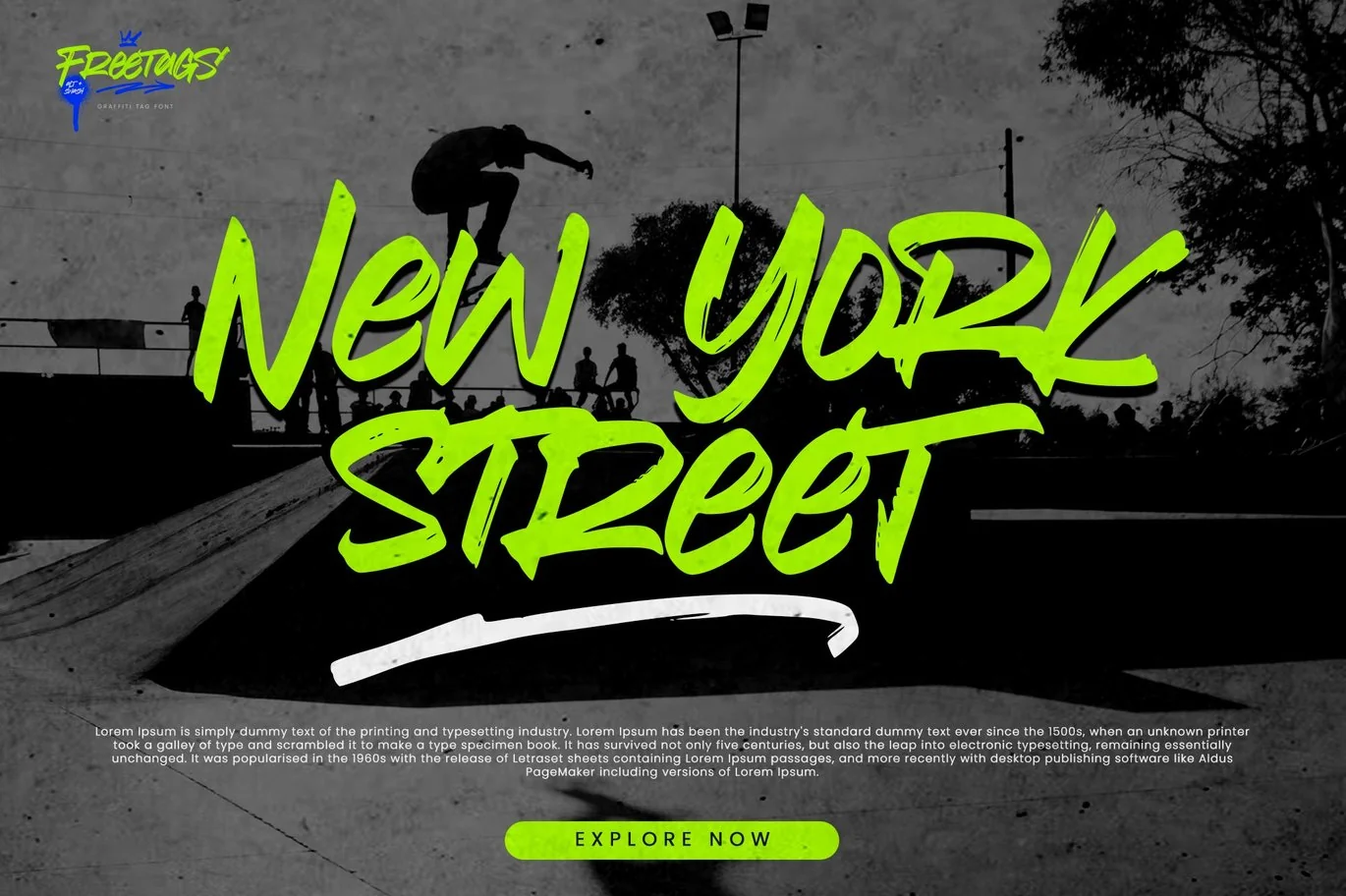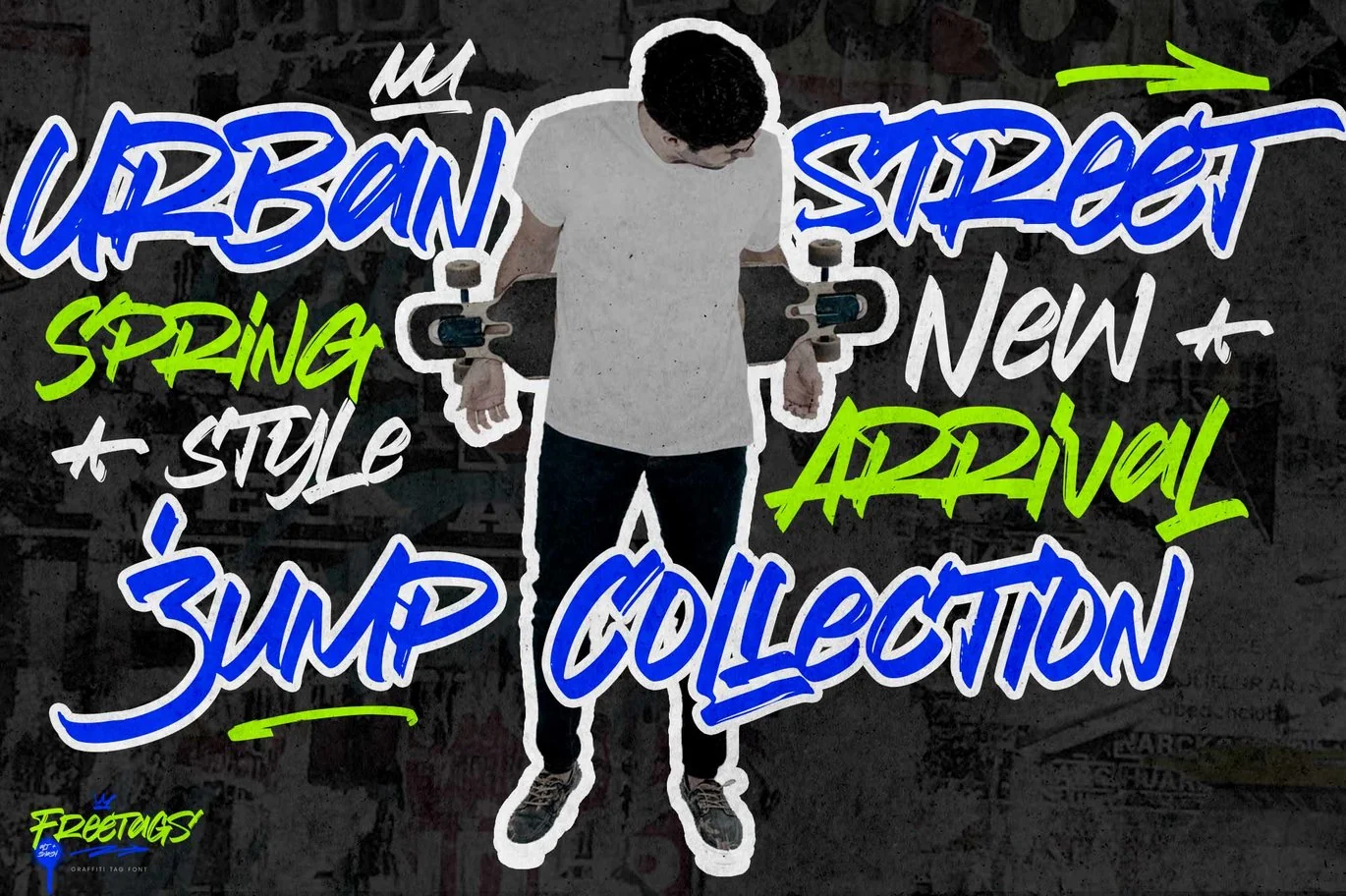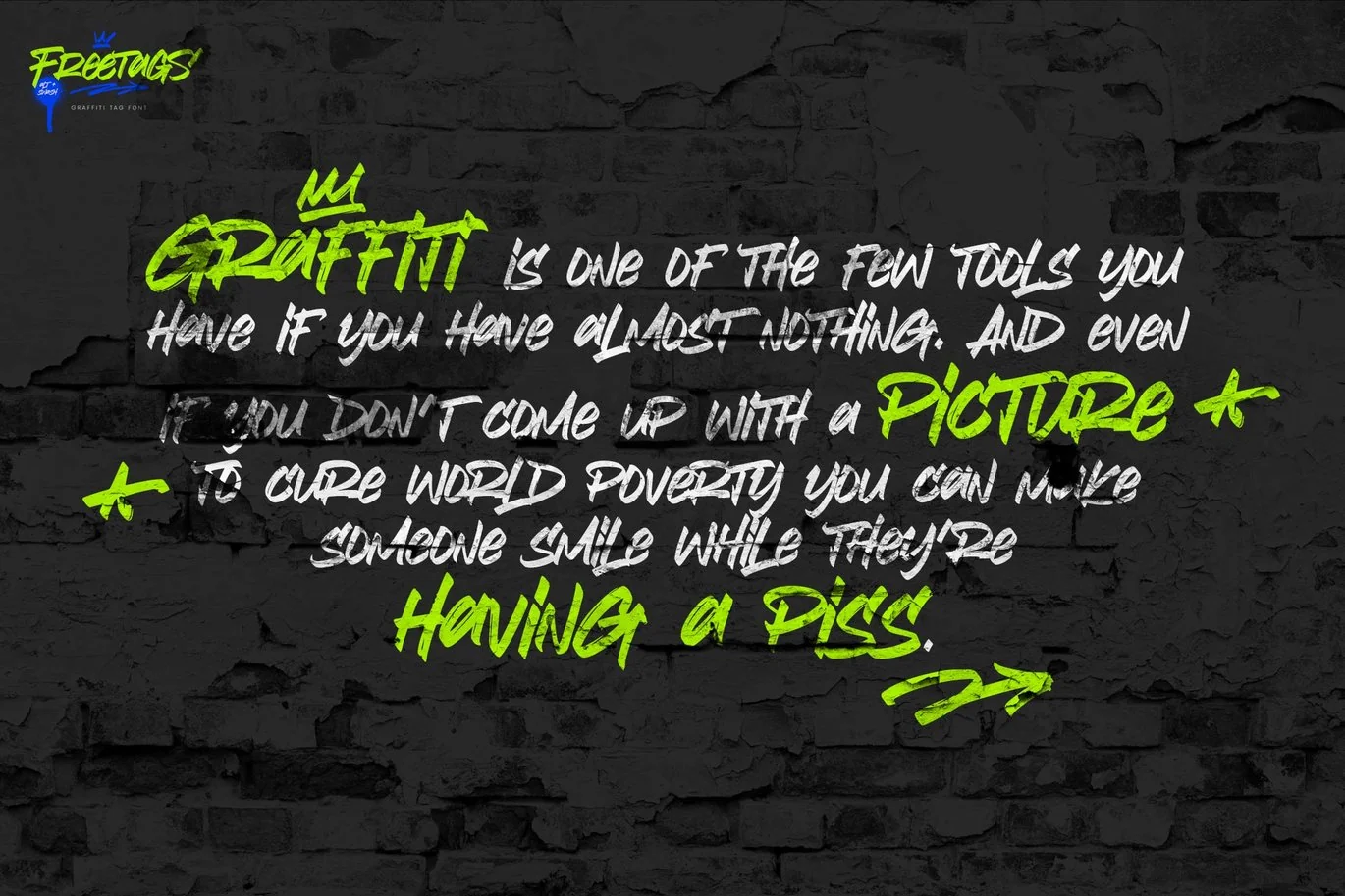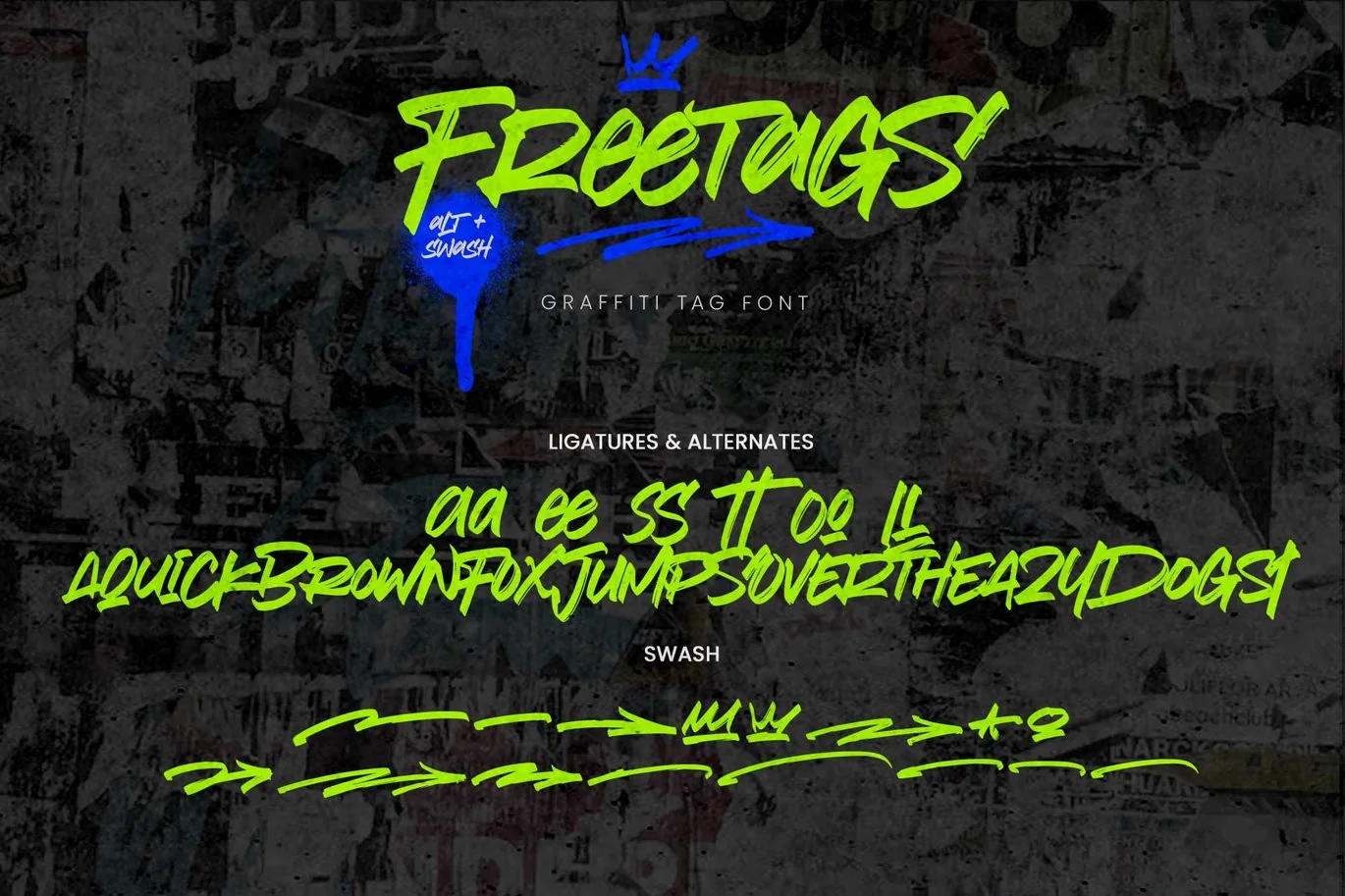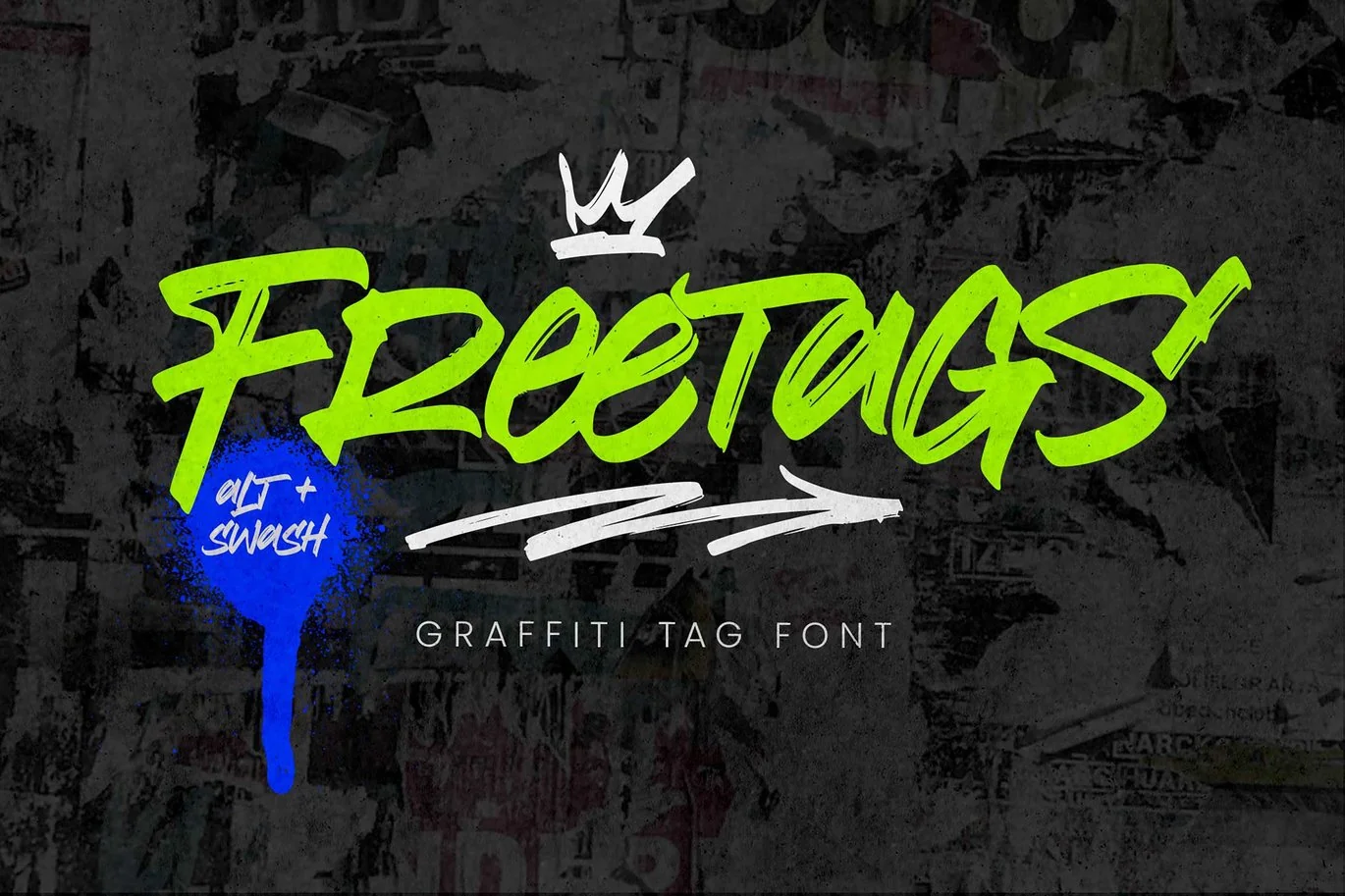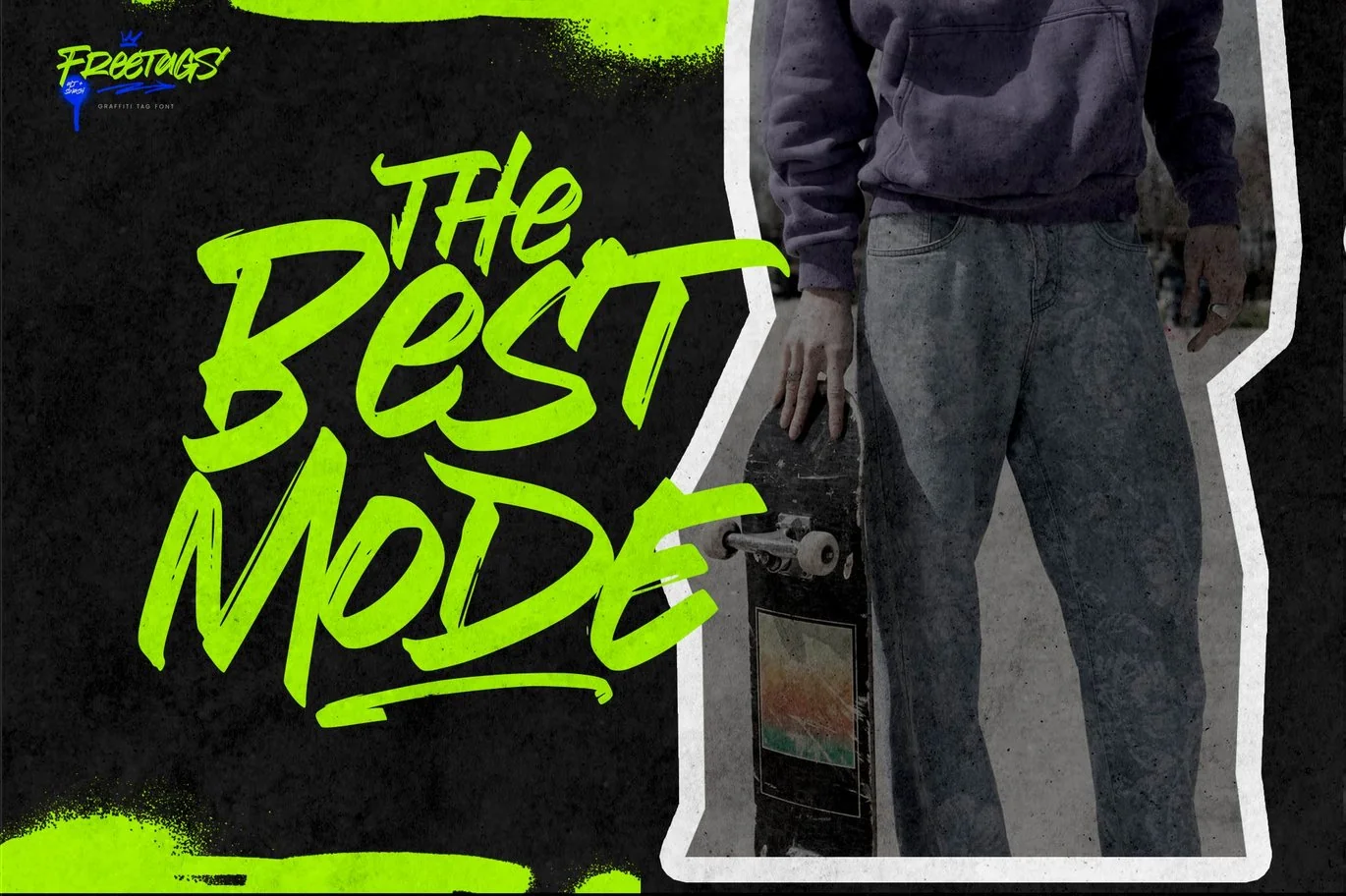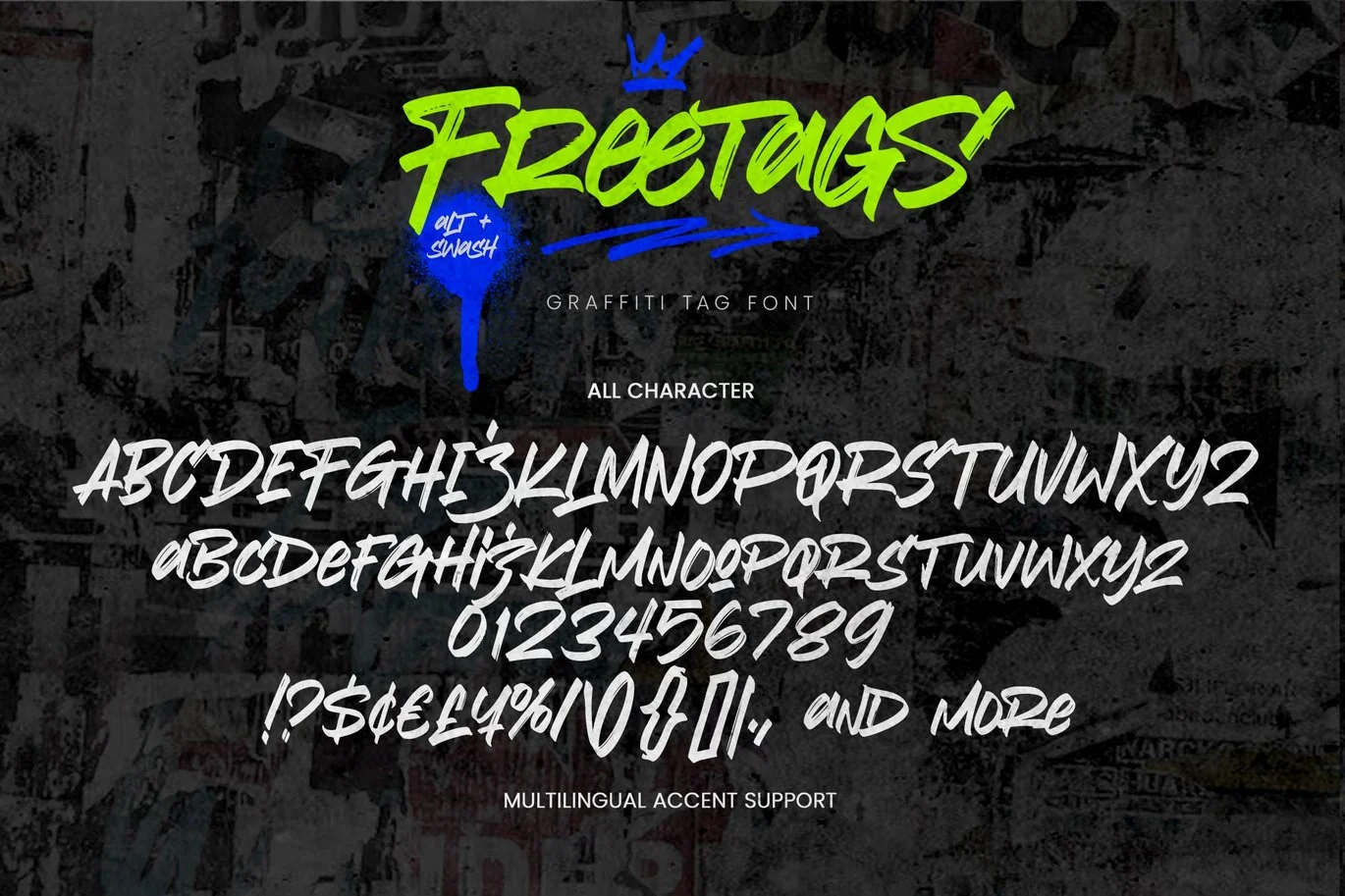
Freetags – Graffiti Tag Font
Hello Everyone, introduce our new product Font Freetags This Is Graffiti Tag Font. This is a Textured Natural Style and Graffiti style.
This font Freetags is great for your next creative project such as logos, printed quotes, invitations, cards, product packaging, headers, Logotype, Letterhead, Poster, Design this font is great for your creative projects such as watermark on photography, and perfect for logos & branding, invitation,advertisements,product designs, stationery, wedding designs,label ,product packaging, special events or anything that need handwritting taste.
That is has charming, authentic and relaxed characteristic more natural look to your text.